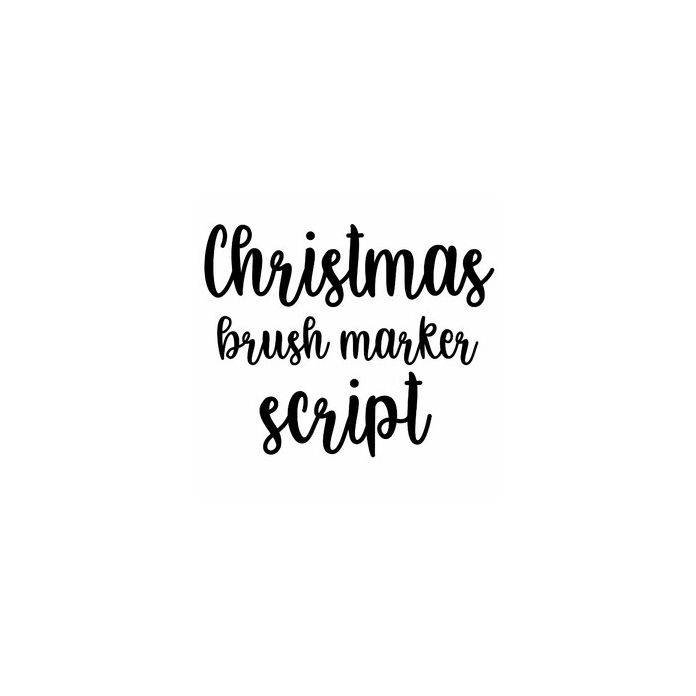
A handwriting brush marker script font, cute for Christmas and Holiday crafts, gifts, planners,notes, signs, cards, and personalization projects. Includes alphabet, numbers, and punctuation.